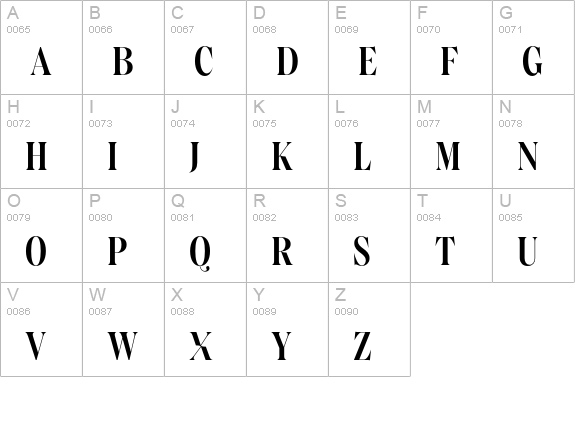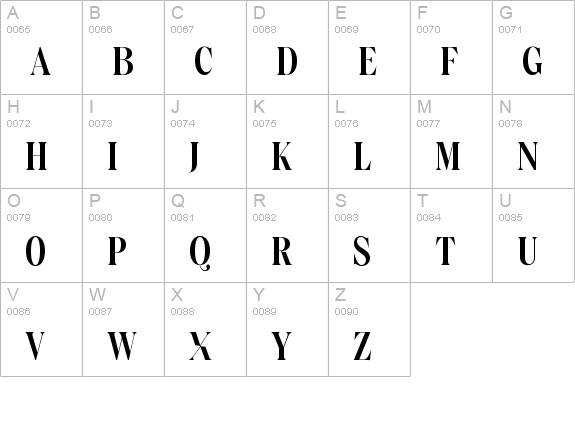
Bolognia Semi Bold is a strong, high-contrast variant in the Bolognia typeface family \xE2\x80\x94 well suited to headlines, attention-grabbing titles, and strong calls-to-action.
Bolognia Semi Bold font is a versatile and modern typeface that combines elegance with a touch of boldness. Its clean lines and distinct letterforms make it perfect for a wide range of design projects, from logos to headlines to branding materials. The semi bold weight adds a sense of strength and presence to your text, making it stand out on the page.